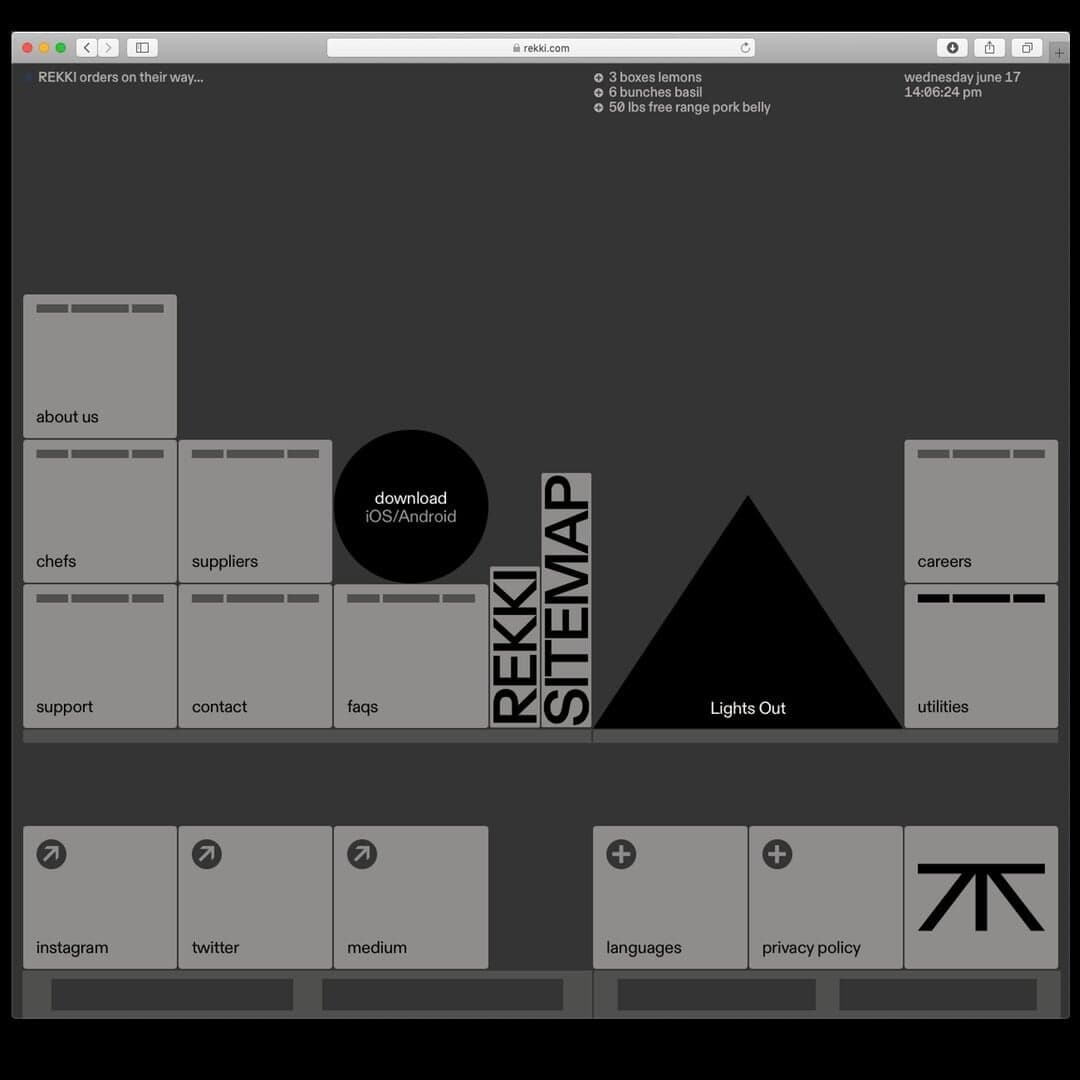
Dinamo created a bespoke version of their ABC Diatype typeface for REKKI, a London-based app connecting restaurants with suppliers. The custom design incorporated the essence of REKKI’s brand and logo letterforms, resulting in a distinctive typeface available in Regular and Medium weights.